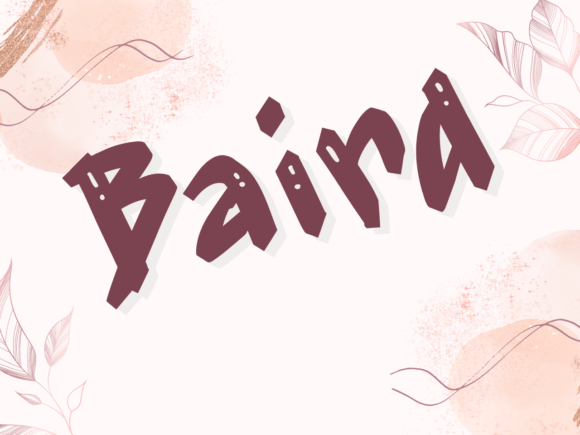
Welcome to the world of Baird Font, a captivating script font family that will ignite your creativity and transform your projects into masterpieces. Designed by the talented Pukka De, Baird Font is a delightful handwritten font that exudes a sense of playfulness and charm.
With its whimsical strokes and endearing personality, Baird Font is the perfect choice for those seeking to add a touch of uniqueness and charm to their designs. Whether you're creating science posters, branding materials, social media graphics, or eye-catching headlines, Baird Font is your secret weapon to make an unforgettable impact.
Immerse yourself in the boundless possibilities of Baird Font and let your imagination soar. Its free-flowing style adds a dynamic touch to your creations, while its carefully crafted characters ensure readability and visual appeal. Elevate your designs and stand out from the crowd with Baird Font.
Discover Endless Opportunities:
- Craft science posters that ignite curiosity and engage young minds.
- Design invitations, greeting cards, and social media posts that radiate warmth and personality.
- Create branding materials that exude creativity and leave a lasting impression.
- Develop logos, posters, and flyers that demand attention and captivate audiences.
Baird Font is more than just a font; it's an artistic expression that breathes life into your projects. Its versatility knows no bounds, allowing you to explore different styles and themes with ease. Whether you prefer bold and vibrant designs or subtle and understated elegance, Baird Font adapts seamlessly to your vision.
Embrace the magic of Baird Font and transport your audience to a world of wonder and imagination. Let your creativity flourish and experience the joy of creating designs that speak volumes.